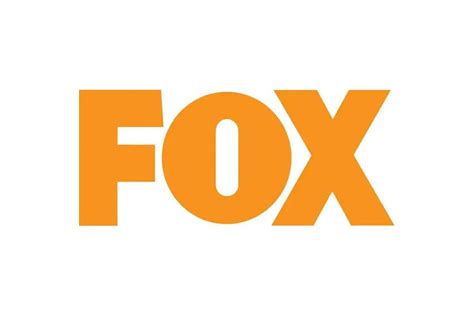
Create Your Fox Logo Font Instantly
Hey everyone! Ever needed a super cool font for your fox-themed logo or project? You know, something that screams ‘foxy’ but also looks professional and totally unique? Well, you’re in luck, because today we’re diving deep into the world of fox logo font generators . We’ll explore what they are, why you’d want to use one, and how to find the perfect font that will make your logo stand out from the crowd. Get ready to unleash your creativity, guys, because we’re about to make some serious design magic happen!
Why a Fox Logo Font Generator is Your New Best Friend
So, why all the fuss about a fox logo font generator ? Think about it. A logo is often the first impression people have of your brand, business, or project. It needs to be memorable, relevant, and convey the right message. When your theme is ‘fox,’ you’re probably aiming for traits like cleverness, agility, speed, perhaps a touch of wildness, or even cuteness. Finding a font that perfectly encapsulates these qualities can be a real challenge. This is where font generators come in. Instead of sifting through thousands of generic fonts, a specialized generator, like one for fox logos, can help you quickly find options that are specifically designed or curated to evoke those foxy vibes. It’s like having a personal font stylist who knows exactly what you’re looking for, saving you tons of time and effort. Plus, these generators often provide unique or less common fonts that you might not discover otherwise, giving your design that extra edge. We’re talking about fonts that could be sleek and modern for a tech startup, or playful and whimsical for a children’s book. The right font can literally transform a design from ordinary to extraordinary, and a fox logo font generator is your shortcut to finding that perfect fit. It’s all about efficiency and finding that unique character that makes your fox-related brand truly shine. Imagine trying to find the perfect font by scrolling endlessly – it’s enough to make anyone want to hibernate! A generator streamlines this process, bringing you curated options that already align with your aesthetic goals. It’s a smart way to ensure your visual identity is on point from the very start, especially when you’re aiming for a specific animalistic charm. Seriously, it’s a game-changer for designers and business owners alike who want to infuse their brand with that distinctive foxy flair without the usual design headaches. It’s more than just finding letters; it’s about finding personality.
How to Find the Best Fox Font Generators
Alright, so you’re convinced you need one of these magical fox logo font generators . But where do you find them, and how do you know which ones are actually any good? It’s not like there’s a giant directory labeled ‘Foxy Fonts Only!’ (though that would be pretty cool, right?). The reality is, you’ll likely be looking at a combination of general font generators, graphic design platforms, and specialized font marketplaces. Start by searching online using terms like ‘fox logo font,’ ‘animal font generator,’ ‘wildlife font creator,’ or even ‘cute fox font.’ You might stumble upon websites that offer a wide array of fonts and allow you to preview them with your own text. Look for platforms that have good filtering options. Can you search by style (e.g., script, serif, sans-serif, decorative)? Can you preview the font with specific keywords like ‘fox’ or ‘wild’? Some advanced generators even let you upload a rough sketch or describe your desired aesthetic, and they’ll suggest suitable fonts. Graphic design tools like Canva, Adobe Express, or even free online editors often have extensive font libraries. While they might not have a specific ‘fox’ category, you can use their search functions and preview features to find fonts that feel foxy. Think about fonts with sharp edges, flowing curves, or a slightly untamed look. Don’t underestimate font marketplaces like Creative Market, Font Squirrel, or MyFonts. While these are often for purchasing fonts, they have excellent preview tools and categorization. You can often find ‘display’ or ‘decorative’ fonts that have a strong thematic element. Look for fonts that use keywords like ‘animalistic,’ ‘adventure,’ ‘nature,’ or ‘playful.’ Always check the license agreements, especially if you plan to use the font for commercial purposes. Some free fonts are only for personal use. The best generators will offer a seamless preview experience, allowing you to type in your business name or tagline and see how it looks in various styles. Pay attention to readability, especially if your logo will be used at different sizes. A super fancy font might look great large, but become illegible when shrunk down for a business card. So, yeah, the search involves a bit of digging, but by using the right keywords and exploring reputable design platforms, you’ll definitely find some gems. Remember, the goal is to find a font that captures the essence of the fox – be it sleek, cunning, or cuddly! Keep your eyes peeled for unique serifs, playful curves, or even fonts with subtle animalistic flourishes.
What Makes a Font ‘Foxy’?
This is where the real fun begins, guys! What exactly gives a font that certain je ne sais quoi that makes it scream ‘fox’? It’s not just about slapping a picture of a fox next to some letters. It’s about the form and feeling of the font itself. Think about the characteristics we associate with foxes: they’re often depicted as clever, agile, quick, cunning, and sometimes a bit mysterious or wild . How can a font embody these traits? For starters, sharp, angular edges can suggest quickness and a keen, alert nature, much like a fox’s pointed ears or sharp movements. Think of fonts with sharp serifs or pointed terminals. Conversely, flowing, curved lines might evoke the graceful, sinuous movement of a fox, or perhaps a more playful, friendly persona, especially for cartoonish or cute fox designs. A font with a slightly irregular or hand-drawn feel can communicate a sense of wildness or natural authenticity, like a fox in its natural habitat. Slightly quirky or unexpected letterforms can hint at cleverness and cunning, adding a unique personality. Consider fonts that have subtle flourishes or decorative elements that might subtly reference nature, like a leaf shape or a swirling tail. Bold, strong fonts can convey power and presence, while lighter, more delicate fonts might suggest agility and subtlety. The key is to match the font’s personality to the specific type of fox you want to represent. Are you going for a sophisticated, modern fox brand? Maybe a sleek, sans-serif font with clean lines and perhaps a slightly extended width. Or is it a whimsical, storybook fox? Then you might lean towards a more decorative, perhaps slightly script-like font with rounded edges and playful ascenders and descenders. Don’t forget about spacing and kerning! The way letters are spaced can significantly impact the overall feel. Tight, energetic spacing might feel fast-paced, while looser spacing could feel more relaxed or elegant. Ultimately, a ‘foxy’ font is one that feels right. It resonates with the core attributes you want your brand to convey. It’s about finding that perfect balance between personality, readability, and thematic relevance. Experiment with different styles and see what clicks! Look for fonts that have a bit of an edge, a sense of movement, or a unique character that mirrors the enigmatic charm of the fox. It’s a bit like deciphering a puzzle, finding the typographic equivalent of a flick of a bushy tail or a knowing glint in an eye. This deep dive into font characteristics is crucial for making an informed choice that truly elevates your fox-themed branding.
Using Font Generators for Fox Logos: Step-by-Step
Ready to put this knowledge into practice? Let’s walk through how you can actually use a fox logo font generator (or a general one with good filtering) to create your perfect font. It’s simpler than you might think, guys! First things first, identify your fox’s personality . Is it a sly, cunning fox? A cute, cuddly kit? A majestic, wild creature? This will guide your font choice. Next, head over to your chosen font generator or design platform . As we discussed, this could be a dedicated generator, a site like Canva, or even a font marketplace with a good preview tool. Input your text . This is usually your brand name, business name, or a tagline. Type it in! Now comes the fun part: experimenting with styles . Most generators will show your text in a variety of fonts. Look for those that align with the ‘foxy’ characteristics we just talked about – sharp edges, flowing curves, unique forms, etc. Use any available filters. If you can filter by style (e.g., ‘decorative,’ ‘script,’ ‘modern’), do so. If you can preview with keywords, try ‘fox,’ ‘wild,’ ‘nature,’ or ‘adventure.’ Don’t be afraid to try the unexpected! Sometimes a font that doesn’t immediately scream ‘fox’ can work beautifully if it captures the right essence. For instance, a bold, geometric font might work for a very modern, sleek fox brand. Preview at different sizes . This is crucial! Type your text and then imagine it on a website header, a business card, and a social media profile picture. Does it remain legible and impactful at all sizes? A font that looks great large but becomes a jumbled mess when small is a no-go. Consider color and background . While the generator primarily focuses on the font shape, briefly think about how your chosen font will look when paired with colors. Some intricate fonts might get lost on busy backgrounds. Download or save your choices . Once you’ve narrowed it down to a few contenders, save them. If you’re using a platform like Canva, you can save designs. If you’re looking at fonts to download, make sure you understand the licensing. Test, test, test! Get feedback from others. Show your potential logo fonts to friends, colleagues, or your target audience. Ask them what feeling or personality the font conveys. Does it feel ‘foxy’ to them? Sometimes an outside perspective is invaluable. Remember, the goal isn’t just to find a font, but the right font. Take your time, play around, and trust your gut. This iterative process of inputting text, exploring styles, and previewing is the core of using these tools effectively. It’s about actively searching and selecting, rather than passively hoping to find something. By following these steps, you’re well on your way to finding a typographic solution that perfectly captures the spirit of your fox-themed project, ensuring it looks professional, unique, and memorable. It’s a systematic approach to achieving a visually compelling result.
Beyond Generators: Font Pairings and Customization
While fox logo font generators are fantastic for finding that initial spark, the design process doesn’t have to stop there, guys! Sometimes, the perfect font needs a little extra something, or maybe you want to create a truly unique look that no one else has. That’s where font pairing and customization come in. Font pairing is all about combining two or more fonts to create a harmonious and visually appealing design. For a fox logo, you might pair a distinctive display font (the one that grabs attention and sets the ‘foxy’ tone) with a simpler, highly readable font for secondary text, like a tagline or website URL. Think of a bold, slightly wild display font for your main logo text, paired with a clean, modern sans-serif for your business details. The key is contrast and complementarity. The fonts should work together without clashing. Generally, pairing a decorative font with a simple, classic one is a safe bet. Another strategy is to pair fonts from the same font family but with different weights or styles (e.g., a bold sans-serif with a regular sans-serif). This creates a cohesive look. When pairing, consider the overall message. Do you want to convey seriousness and expertise, or playfulness and creativity? Your font choices should reflect this. Now, let’s talk customization . This is where you can really make your fox font your own . Many graphic design tools and even some advanced font editors allow you to tweak existing fonts. You can modify letterforms, adjust spacing, add custom ligatures (connected letters), or even create unique swashes or flourishes. For example, you could take a font that has nice curves and subtly extend a serif to resemble a fox’s tail, or modify a letter ‘o’ to have a slightly pointed, ear-like top. This level of customization requires more design skill and often specialized software (like Adobe Illustrator or Affinity Designer), but the results can be incredibly unique and impactful. Even simpler customizations, like adjusting the baseline of certain letters or playing with the kerning significantly, can make a big difference. Remember those font generators? They are a starting point. You might find a font that’s 80% perfect. The remaining 20% can often be achieved through thoughtful pairing or minor tweaks. Always ensure that any customization you make still maintains readability and doesn’t compromise the overall aesthetic. It’s about refinement, not over-complication. By thinking beyond the initial generation and exploring these advanced techniques, you can elevate your fox logo from good to absolutely spectacular. It’s about layering elements, combining different typographic voices, and adding those bespoke touches that truly define your brand’s visual identity. This holistic approach ensures your logo is not just a font, but a complete, compelling design.
Conclusion: Find Your Foxy Font Today!
So there you have it, folks! We’ve explored the exciting world of fox logo font generators , why they’re indispensable tools for creating unique branding, what makes a font truly ‘foxy,’ and how to use these generators effectively, even delving into pairing and customization. Finding the perfect font is a crucial step in establishing a strong visual identity, and with the right tools and a little creative exploration, you can uncover typographic treasures that perfectly capture the spirit of the fox. Whether you’re designing a logo for a business, a personal project, or just for fun, don’t underestimate the power of a well-chosen font. It’s the silent storyteller of your brand. So go ahead, dive in, play around with different styles, and find that killer foxy font that will make your project unforgettable. Happy designing, everyone!